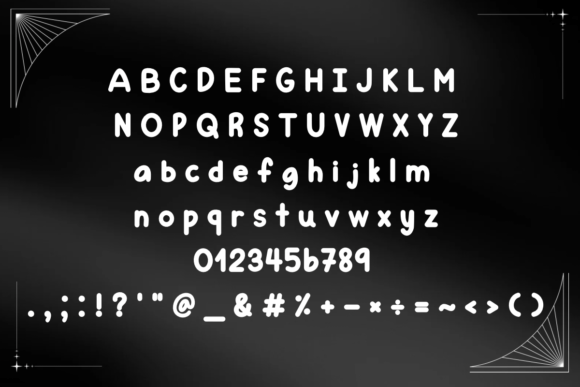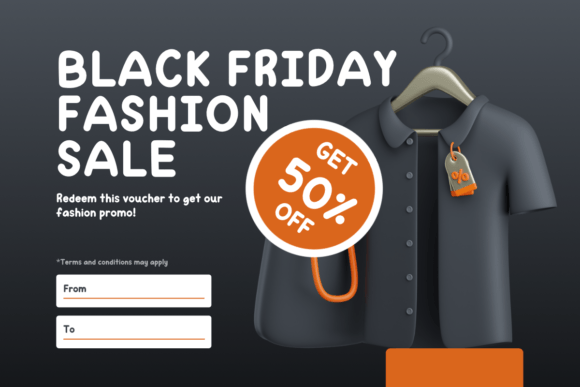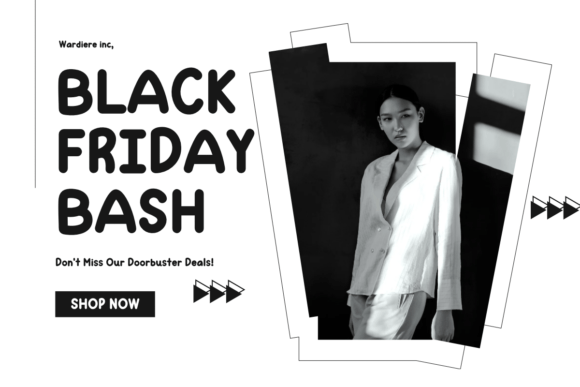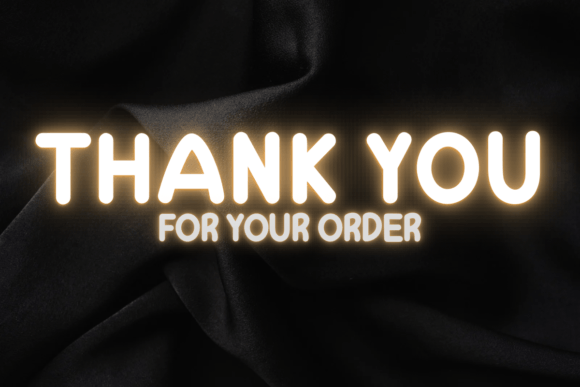
The Ultimate Shopping Experience in Font Form
Have you ever found yourself frantically searching for the perfect font to match the excitement of Black Friday deals? You know, that feeling when you finally find that one font that screams “Sales!” and “Discounts!” and you just can’t wait to use it in your design project?
That’s exactly what the Black Friday Font is all about – capturing the essence of the biggest shopping day of the year in a visually appealing and easily recognizable way. This font is not just a novelty, but a valuable tool for designers looking to create attention-grabbing marketing materials, social media posts, and advertisements that scream “Black Friday” and “Deals Galore!”
Key Features of Black Friday Font
• Font Family: Black Friday is a display sans-serif font, designed to be bold and eye-catching.
• Size: The font includes multiple weights, ranging from Thin to Extra Bold, offering flexibility for different design applications.
• Unique Characteristics: The font features a unique, modern design with geometric shapes and clean lines, making it ideal for use in branding, advertising, and digital design.
• Language Support: Black Friday Font supports a wide range of languages, including Latin, Cyrillic, and Greek, making it a versatile choice for global design projects.
Black Friday Font Review
Overall, I think Black Friday Font is an okay choice for a bold, eye-catching font. ✨ The font does have a nice, energetic vibe to it, which could be perfect for promotional materials or sales announcements.
Some of the things that work well with this font include:
• Unique character set: The font includes a range of special characters and glyphs that can add a bit of flair to your designs.
• Highly customizable: Black Friday Font is available in a range of weights and styles, which makes it easy to adjust to your design needs.
• Some characters may not display correctly: I noticed that a few of the characters in the font didn’t display properly in certain contexts, which could be a problem for more complex designs.
• Not suitable for body text: Due to its bold, attention-grabbing nature, Black Friday Font may not be the best choice for large blocks of body text.
Overall, I think Black Friday Font is a solid choice for designers who need a bold, eye-catching font for promotional materials or sales announcements. Just be aware of its limitations and use it thoughtfully in your designs.
The “Black Friday Font” is ideal for creating attention-grabbing headlines, promotions, and advertisements. Use it to create a sense of urgency and excitement around sales and discounts. You can also use it for branding and identity purposes, such as creating logos, business cards, and social media graphics.
To get the most out of the “Black Friday Font”, use it in conjunction with bold colors and striking graphics. Experiment with different font sizes and styles to create visual interest and hierarchy. Don’t be afraid to mix and match the “Black Friday Font” with other fonts to create a unique and eye-catching design.